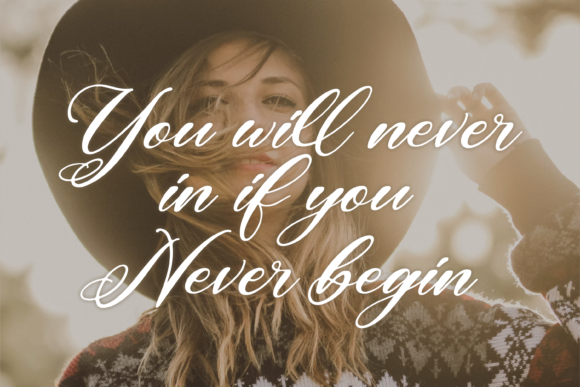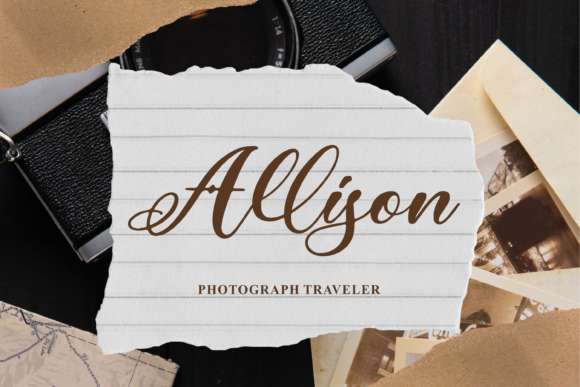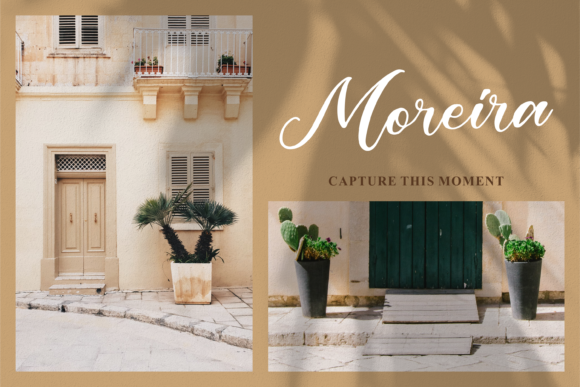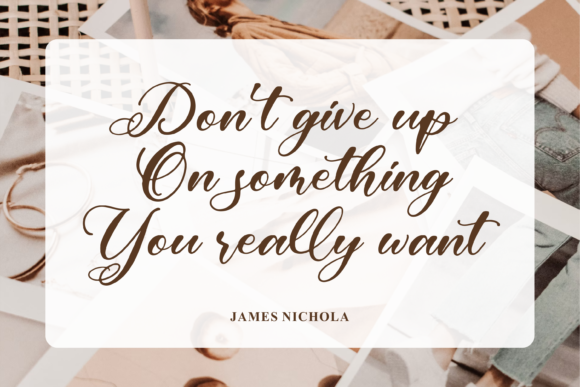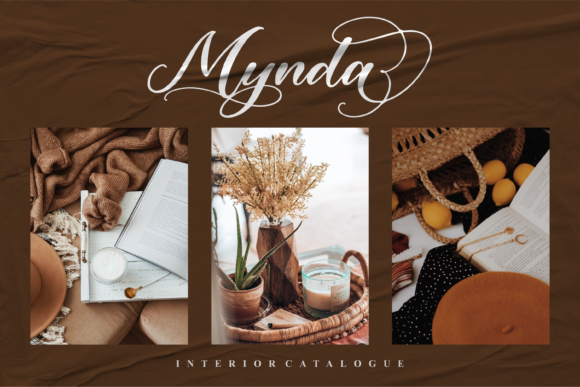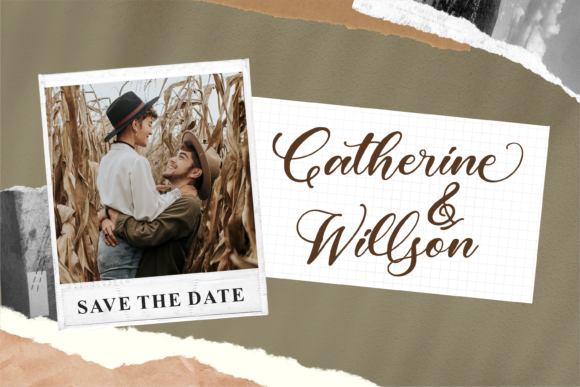
Introduction to Rafaela Belaria Font
Rafaela Belaria is a delicate and elegant handwritten font.
Its distinct and well balanced letters make this font a masterpiece Rafaela Belaria is PUA encoded which means you can access all of the glyphs and swashes with ease.